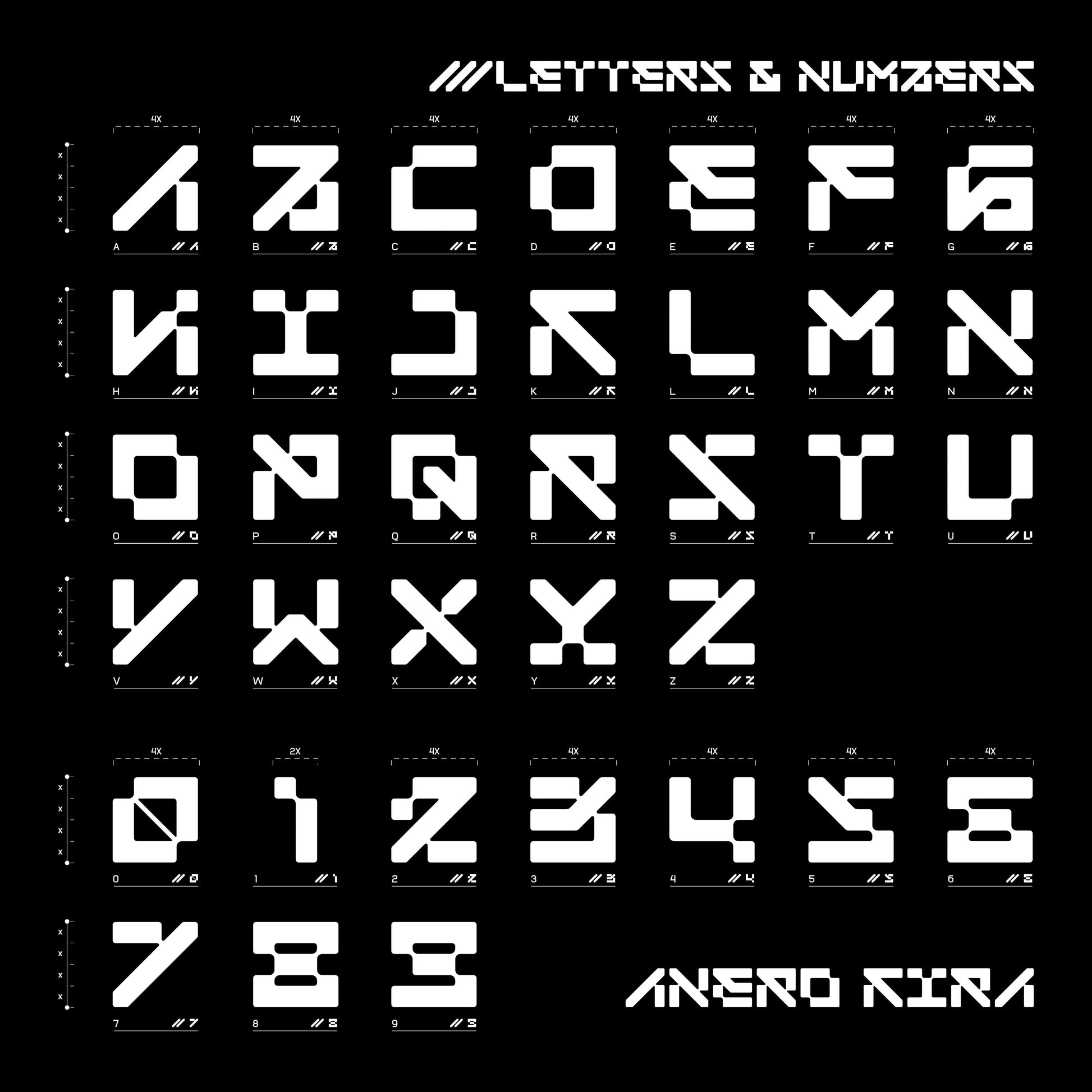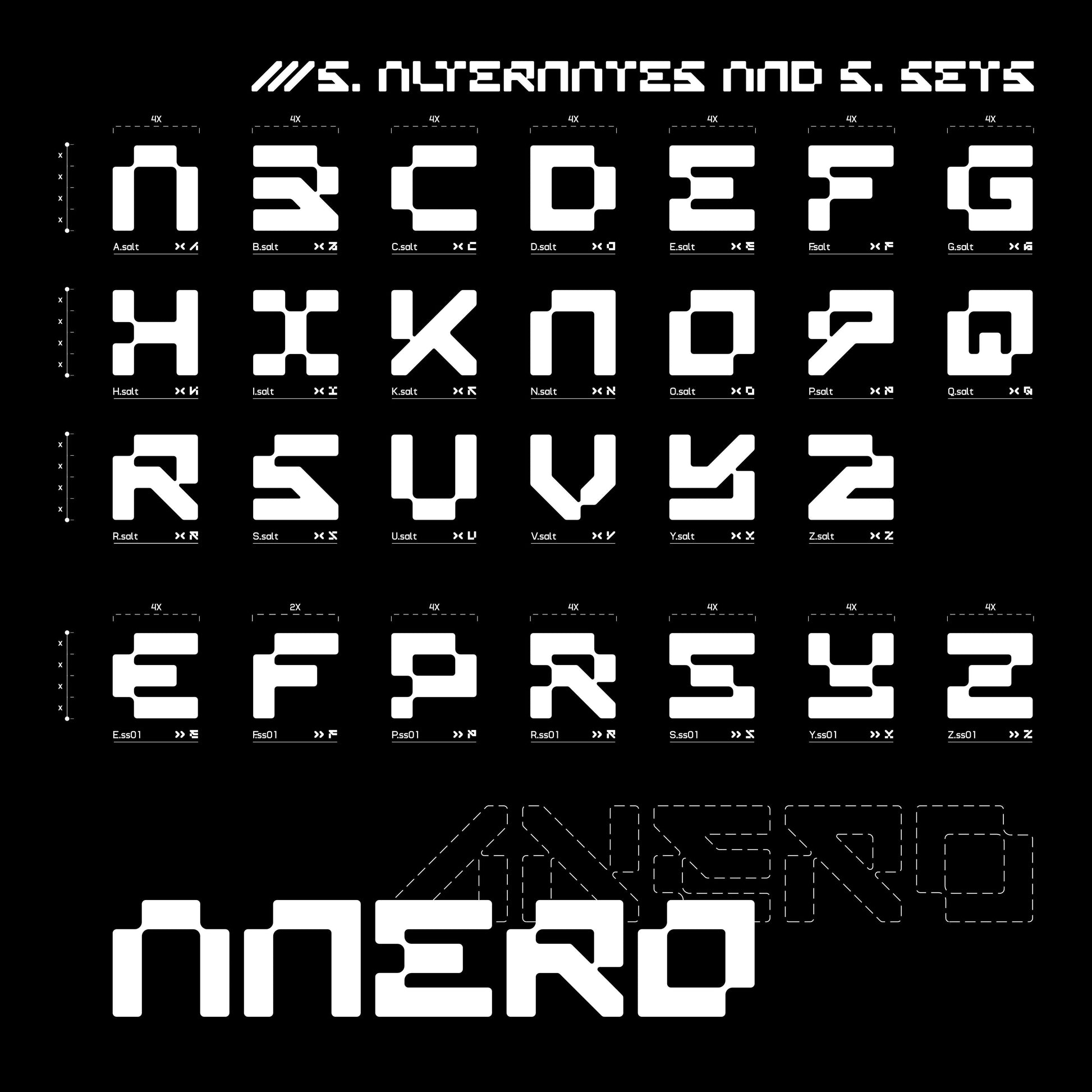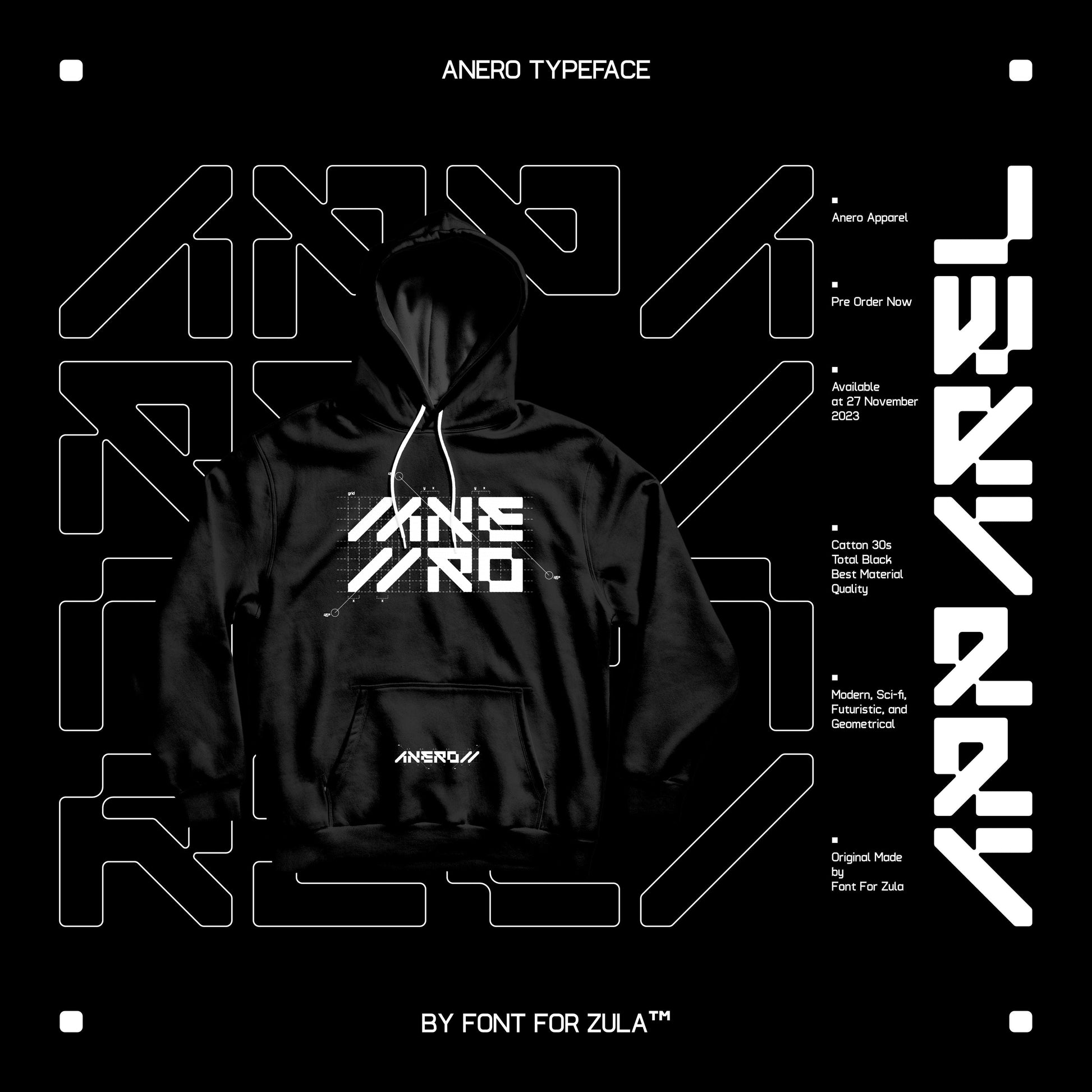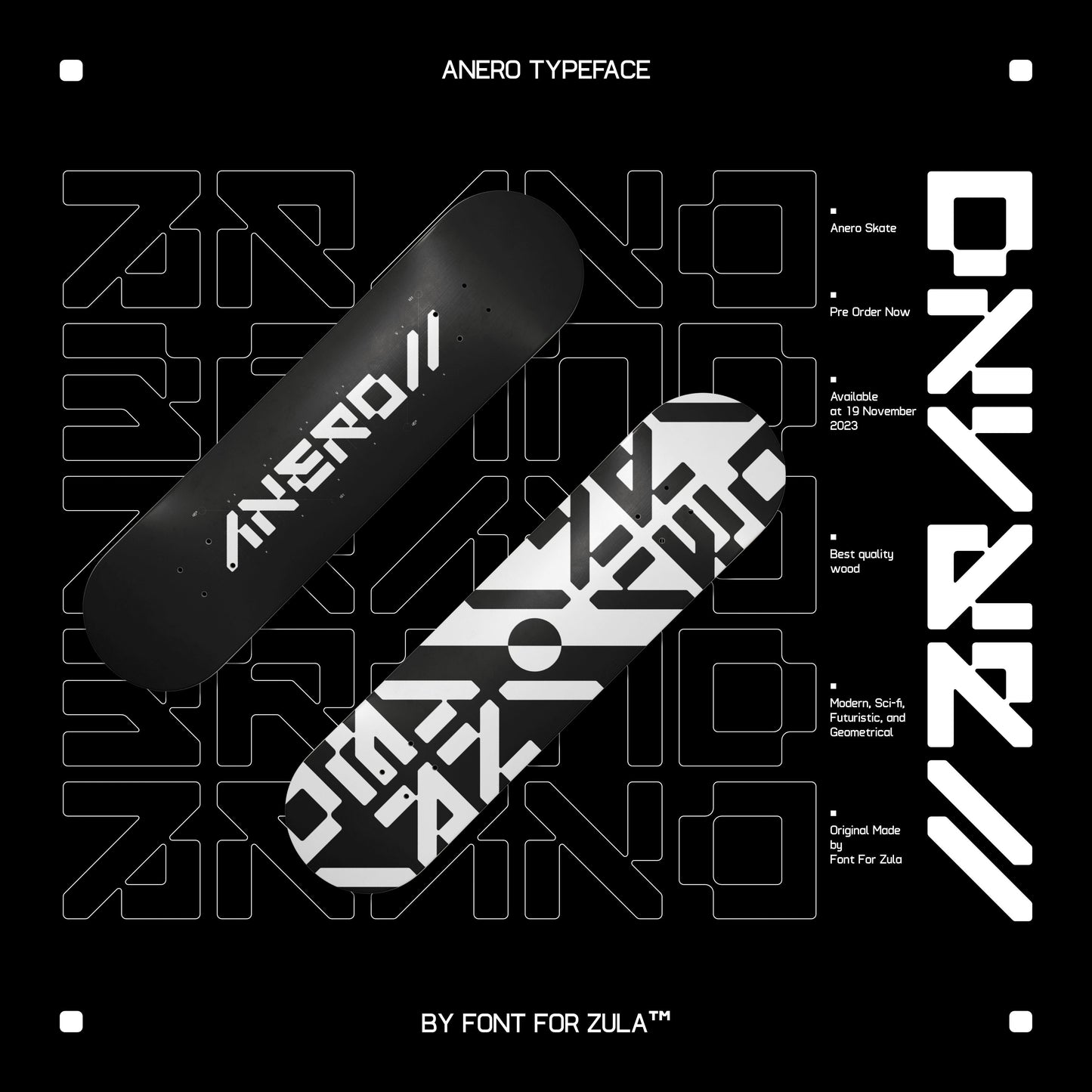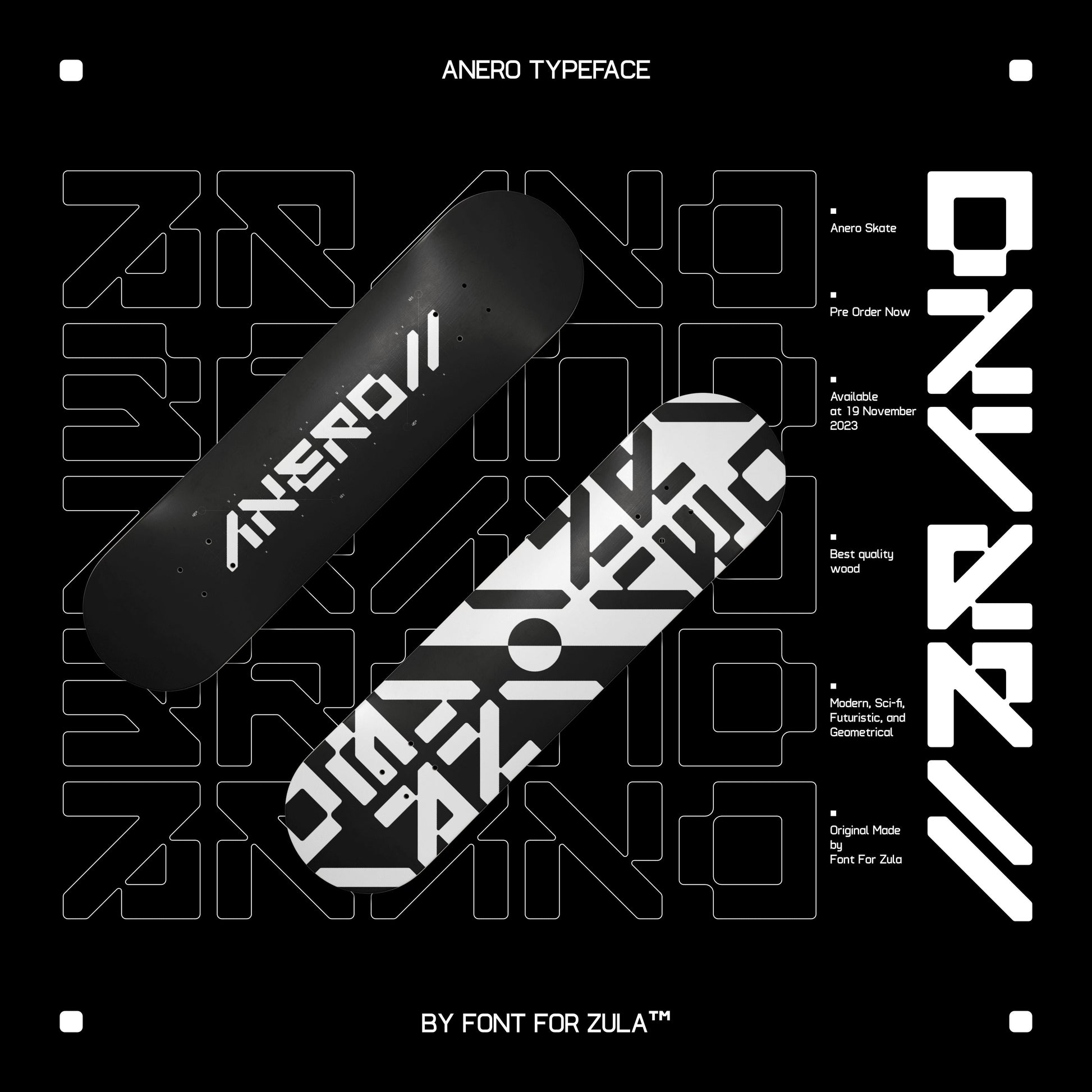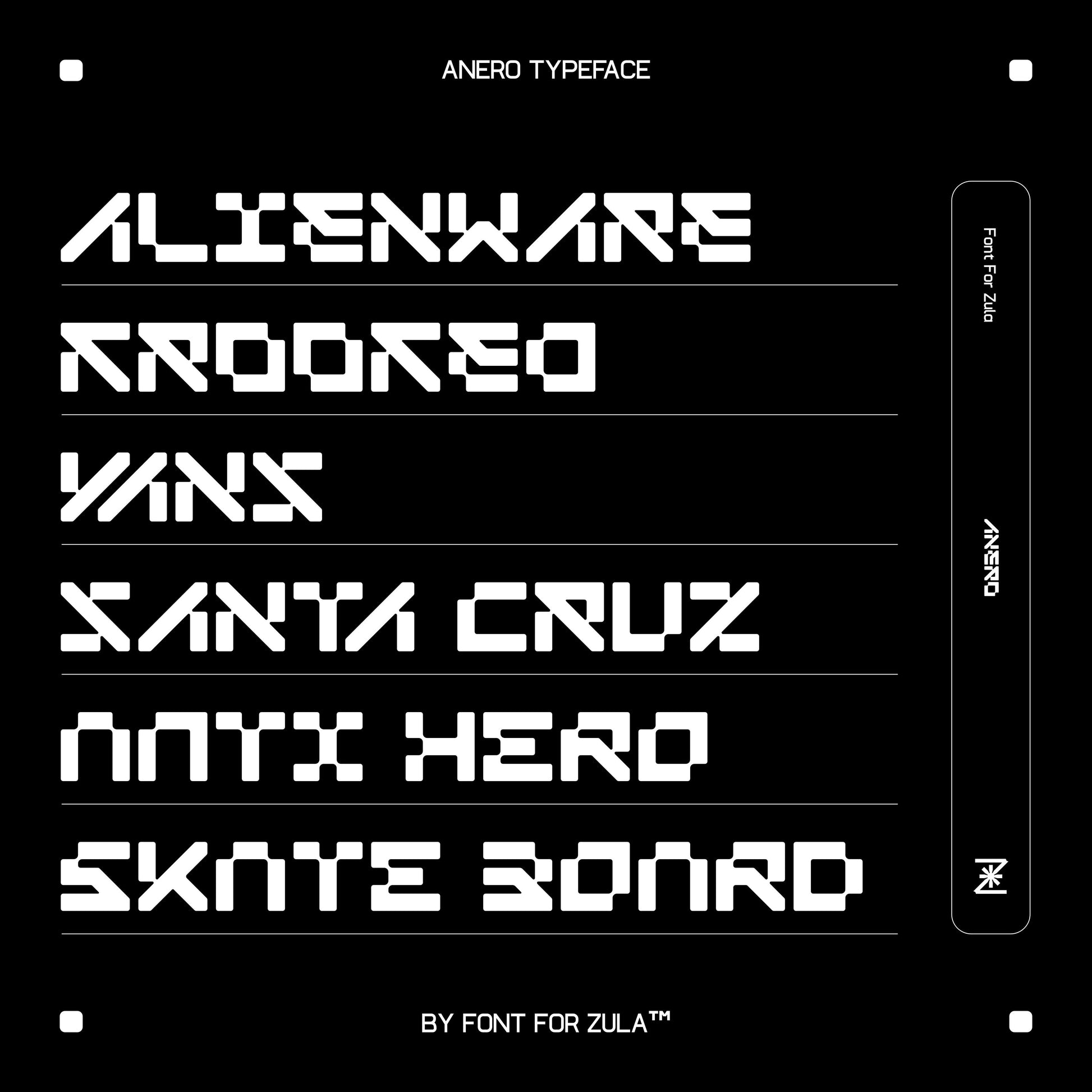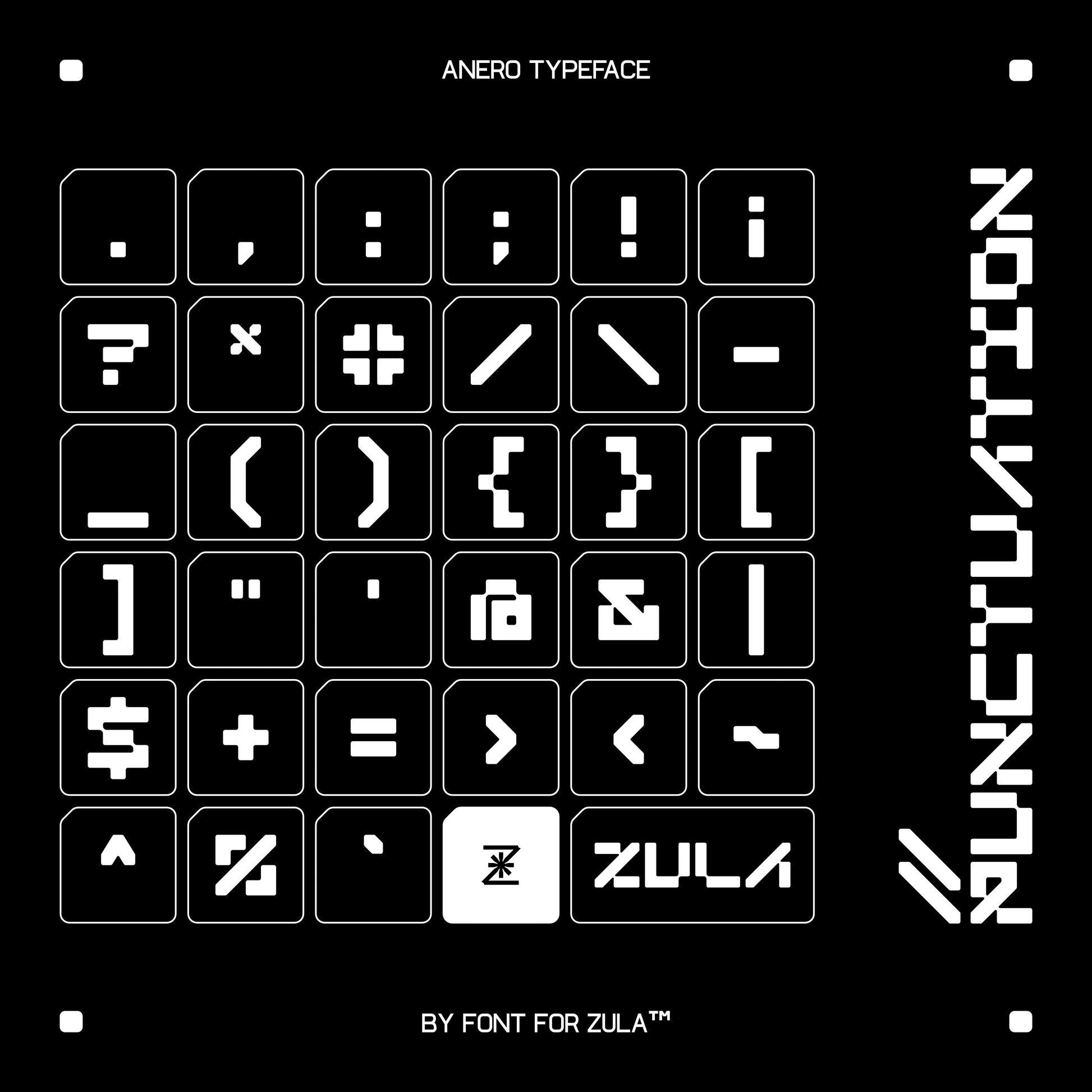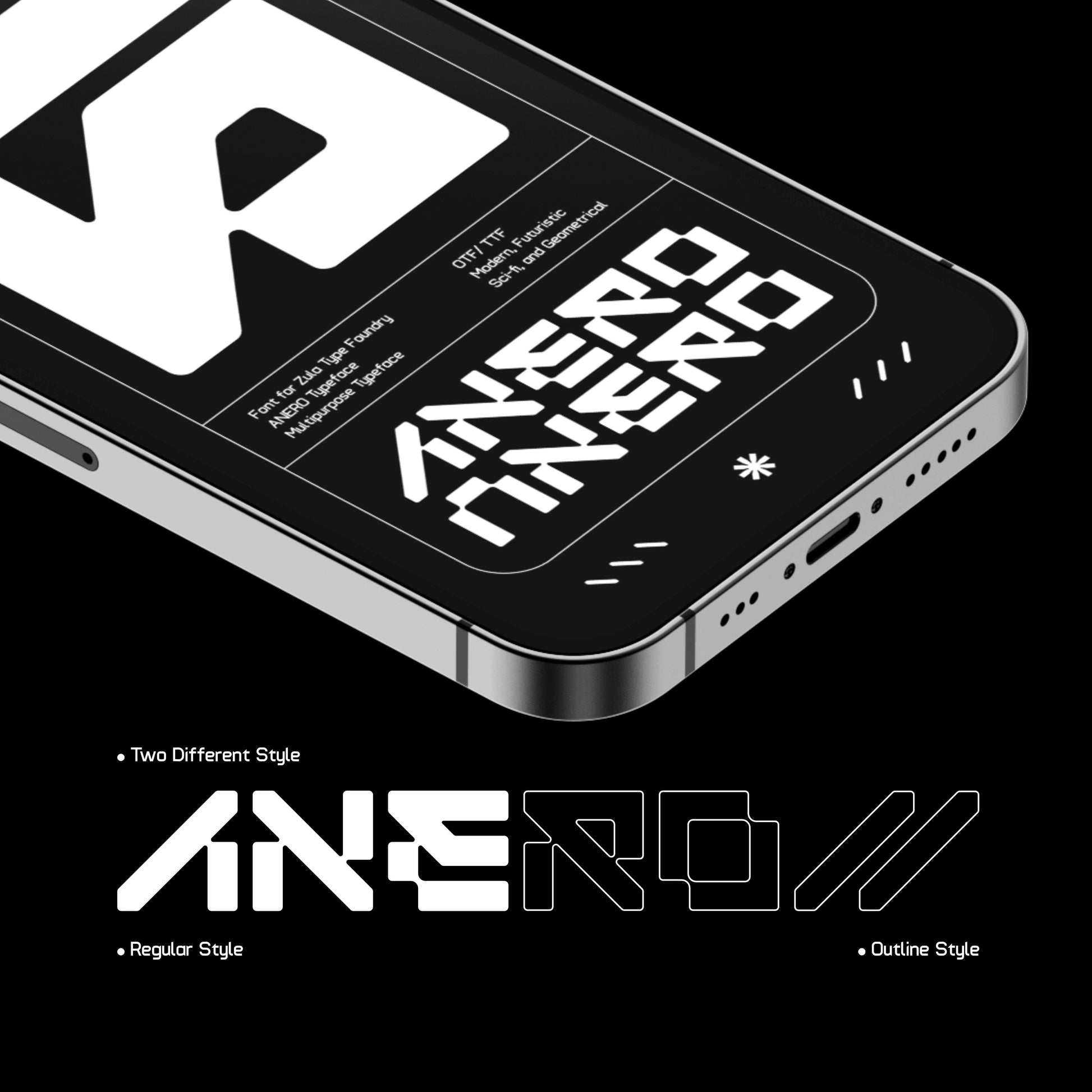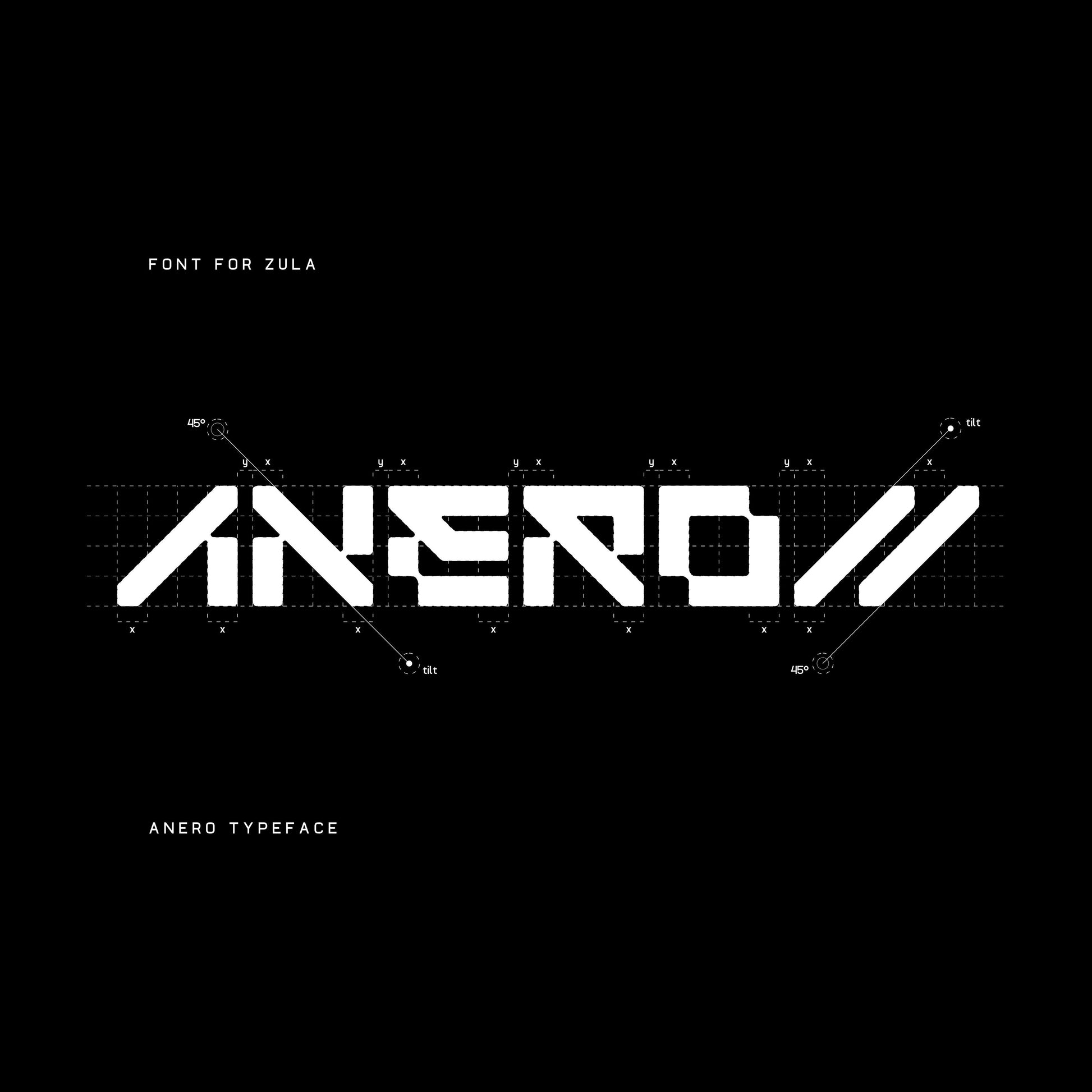
Anero Typeface has a modern, futuristic, geometrical and unique design concept. This typeface is suitable for various purposes such as branding, logos, apparel, and other projects that require a futuristic or hi-tech impression.